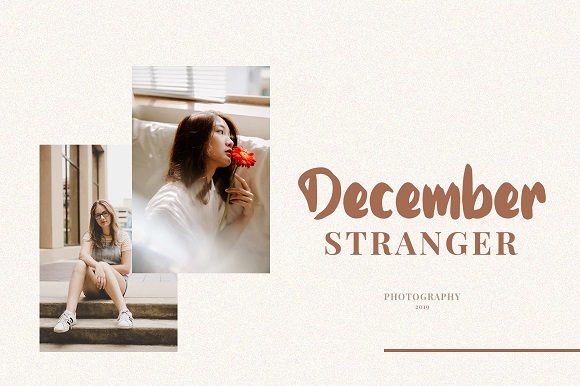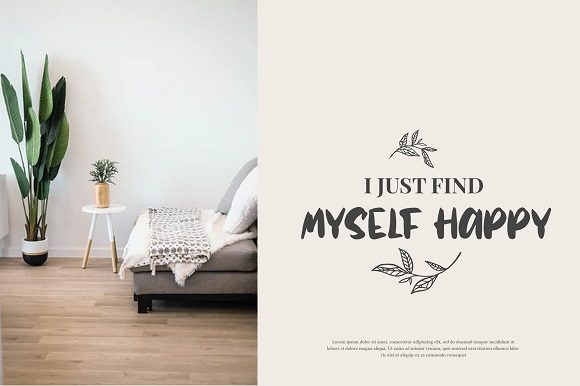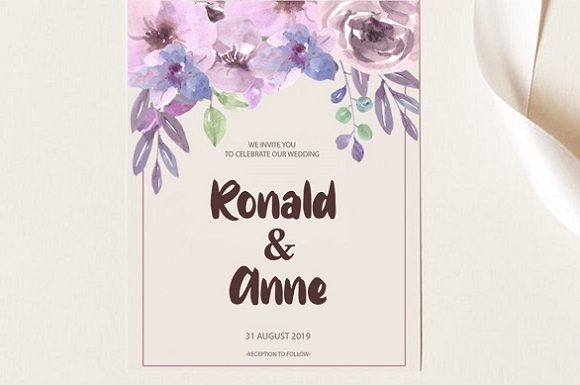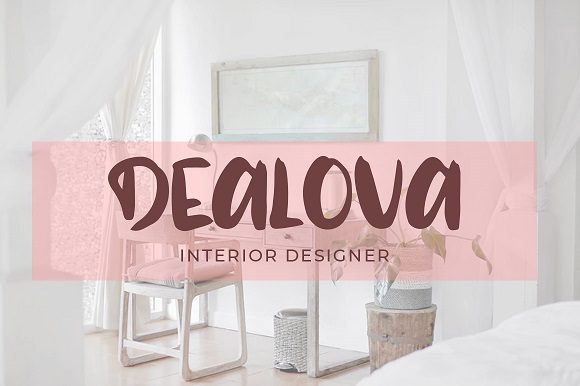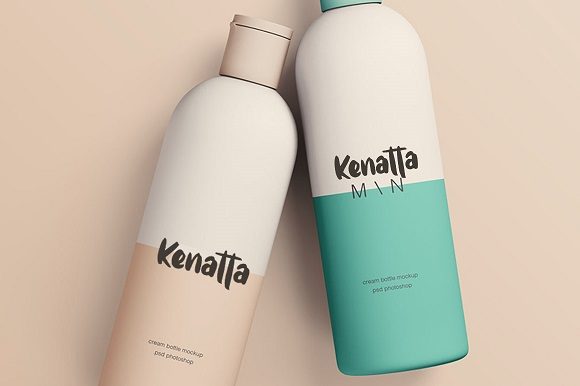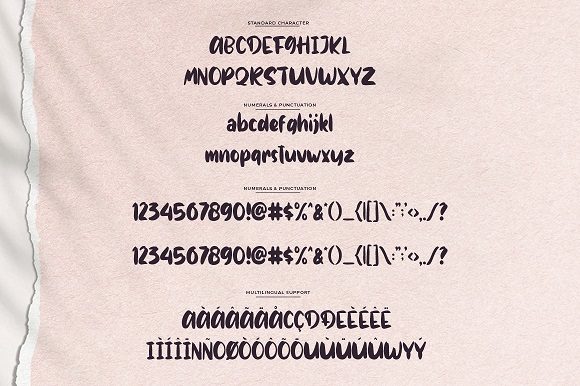
The Gotten Font: Elevating Design with Elegance and Authenticity
I’ll never forget the moment I stumbled upon the Gotten font. I was working on a project for a client who wanted a sophisticated, yet authentic look for their branding. I had spent hours scouring the internet for the perfect script font, but nothing seemed quite right. That was until I discovered Gotten. Its elegant strokes and authentic feel immediately caught my attention, and I knew I had found the perfect fit. In this article, I’ll share my experience with the Gotten font, its features, and how to make the most of it in your design projects.
A Personal Review of Gotten Font
- ✨ Elegant and authentic script style
- 💫 Beautifully crafted OpenType features, including glyphs and stylistic alternates
- 🎨 Versatile and works well for a variety of design projects, from branding to invitations
While the Gotten font is exceptional, there are a few minor quirks to be aware of:
- ⚠️ Some users may find the font’s authenticity and elegance too ornate for certain projects
- 🤔 Limited availability of certain languages or character sets
The Story Behind Gotten Font
The Gotten font was designed with the goal of combining authenticity and elegance in a single, stunning script. While the designer’s inspiration may be shrouded in mystery, it’s clear that their passion for typography and design resulted in a truly exceptional font.
| Font Name | Gotten Font |
| Author | StringLabs |
Q: What makes the Gotten font unique?
A: The Gotten font’s unique blend of authenticity and elegance sets it apart from other script fonts.
Q: Is the Gotten font suitable for body text?
A: While the Gotten font is highly legible, it’s best suited for headings and titles. For body text, consider a more traditional serif or sans-serif font.